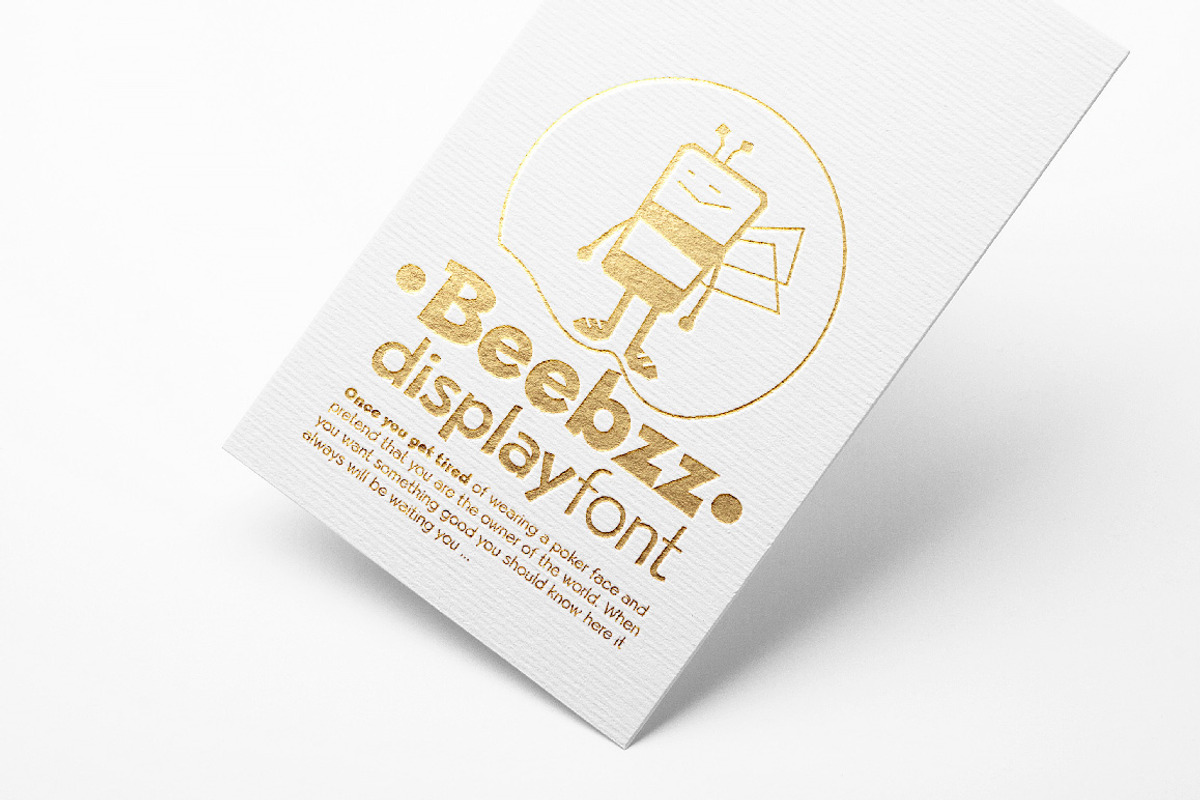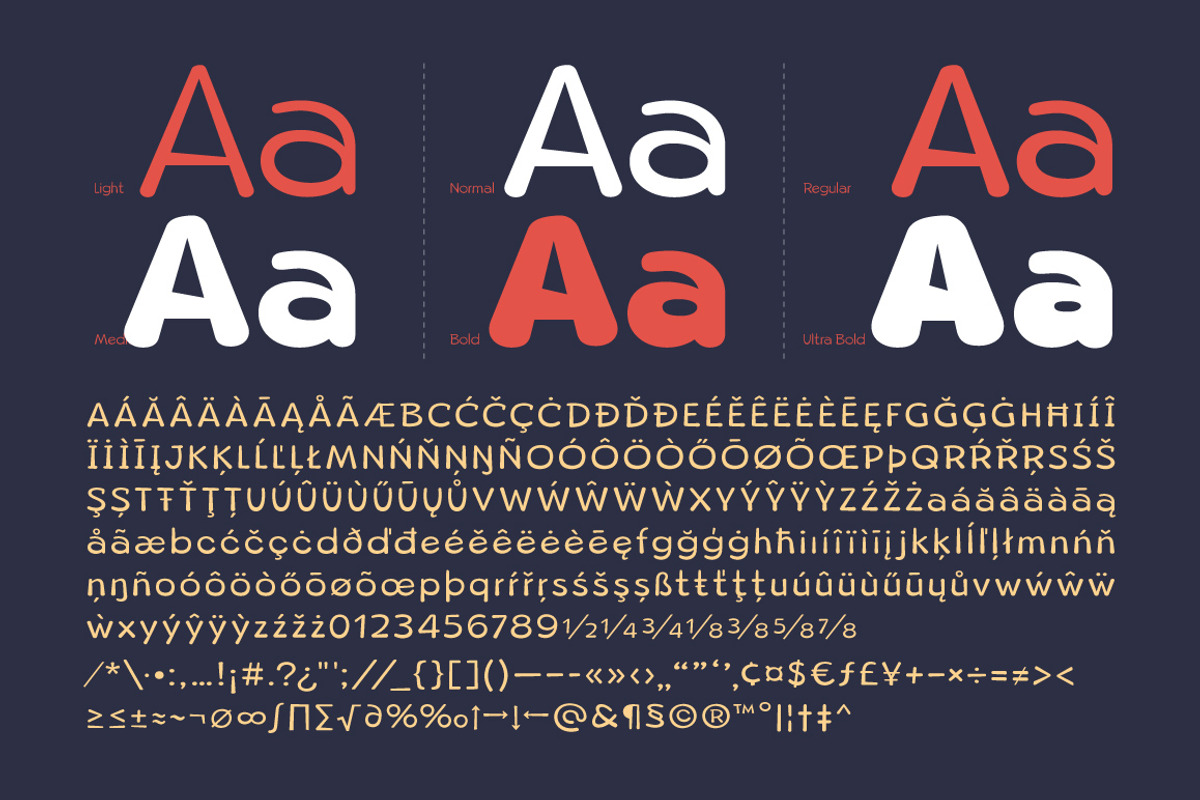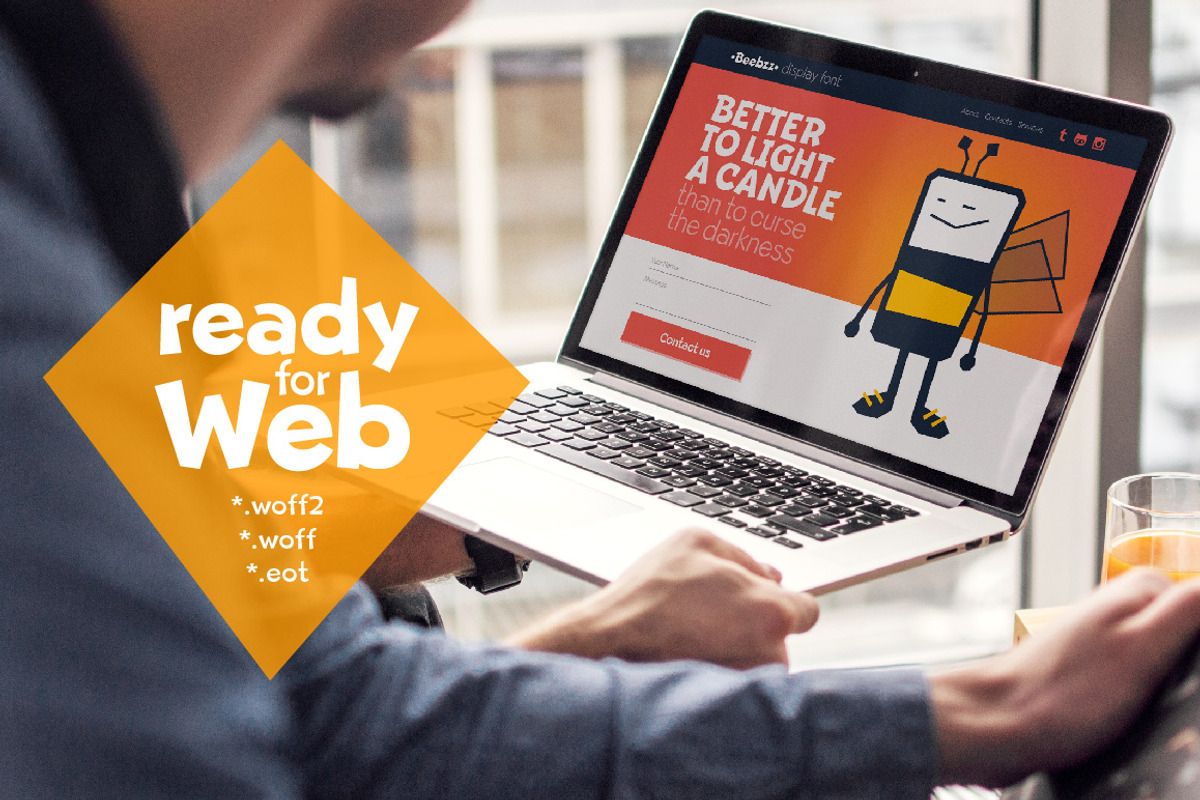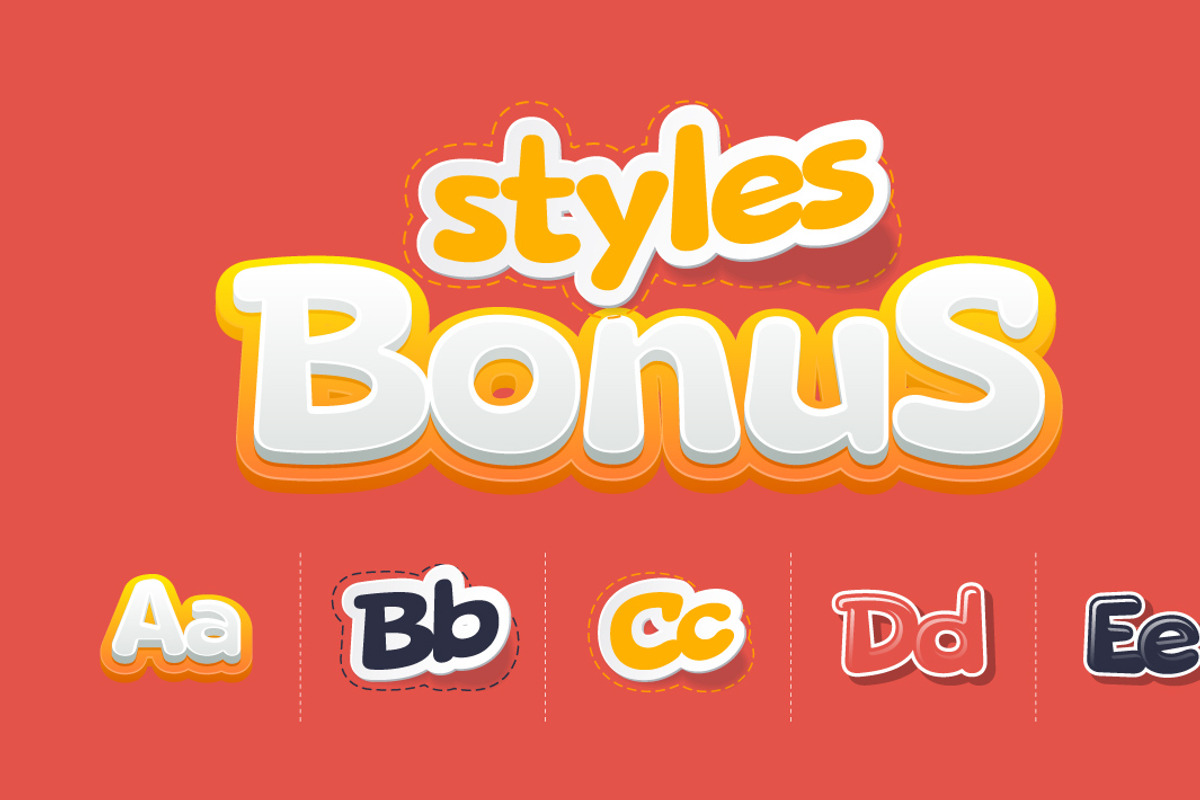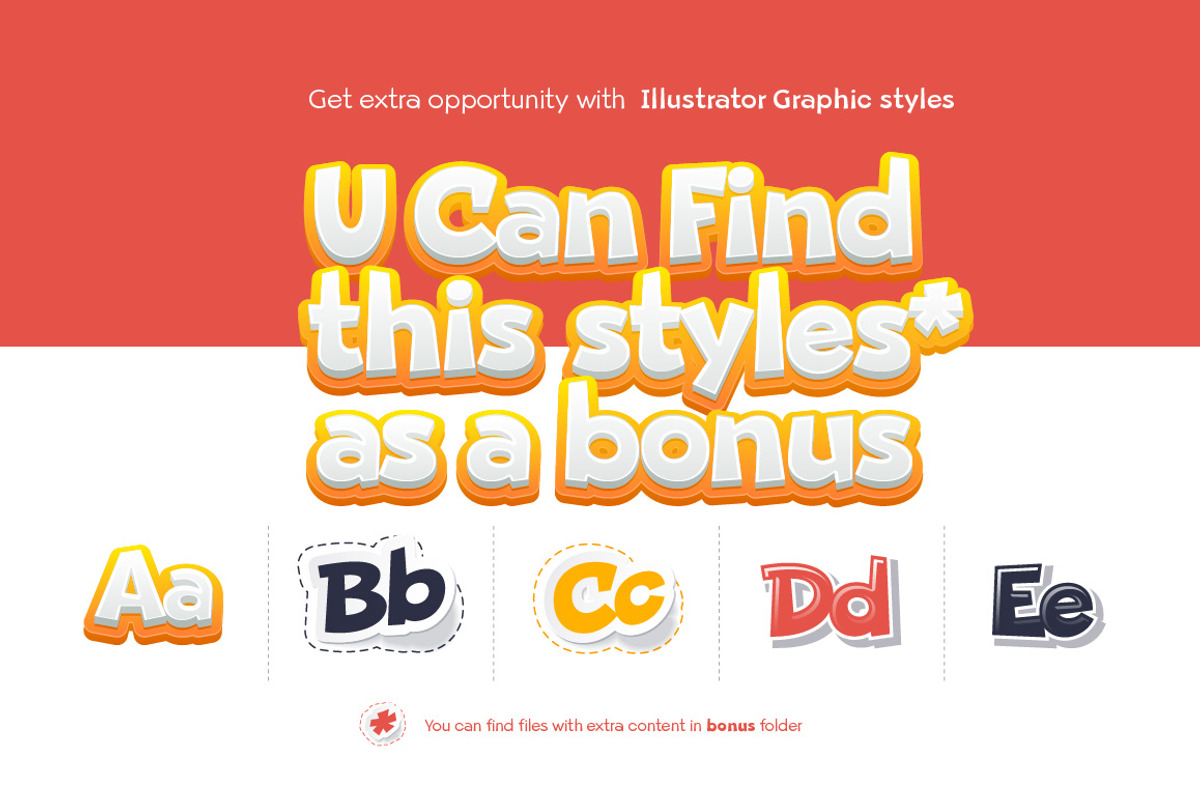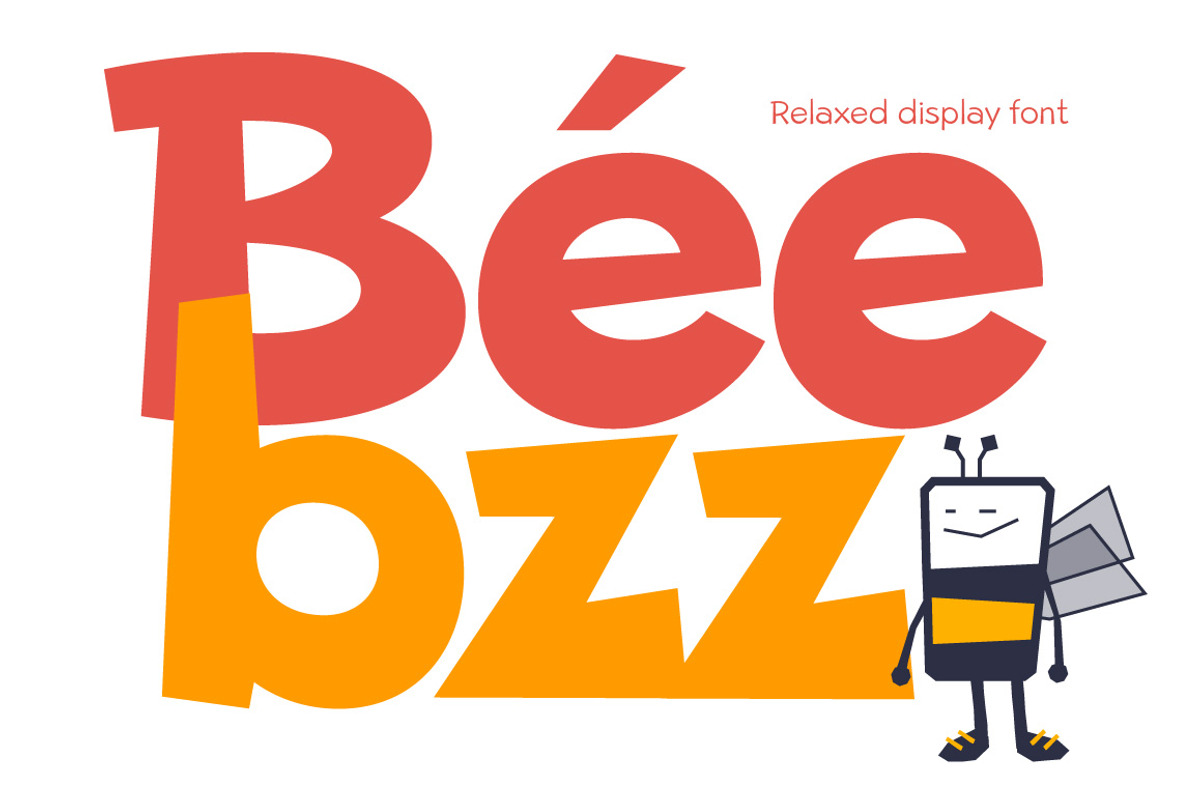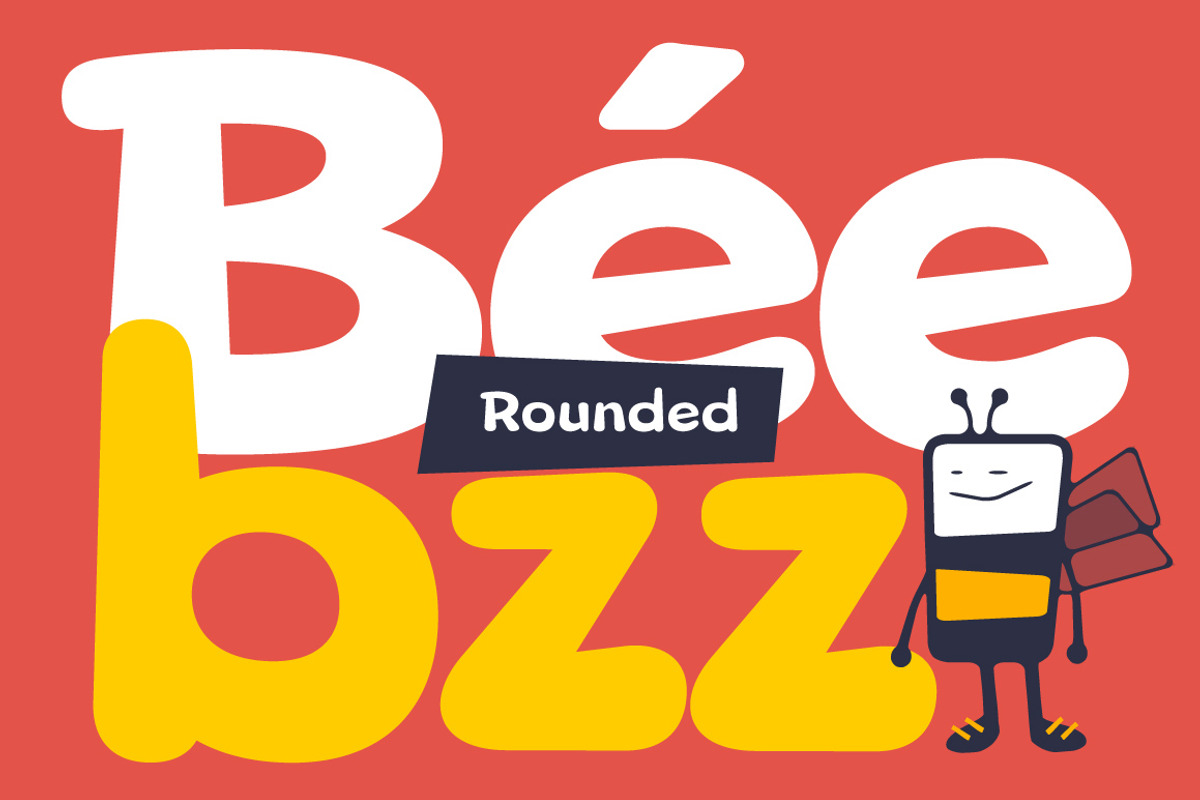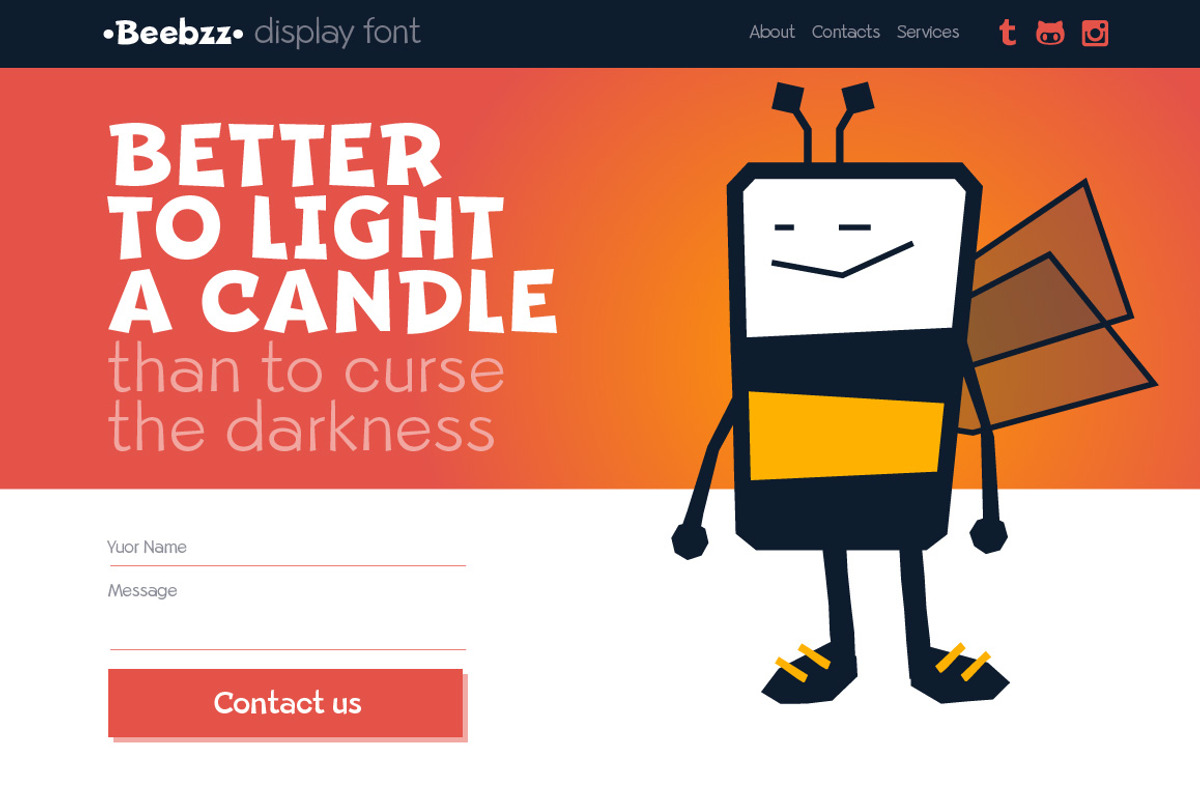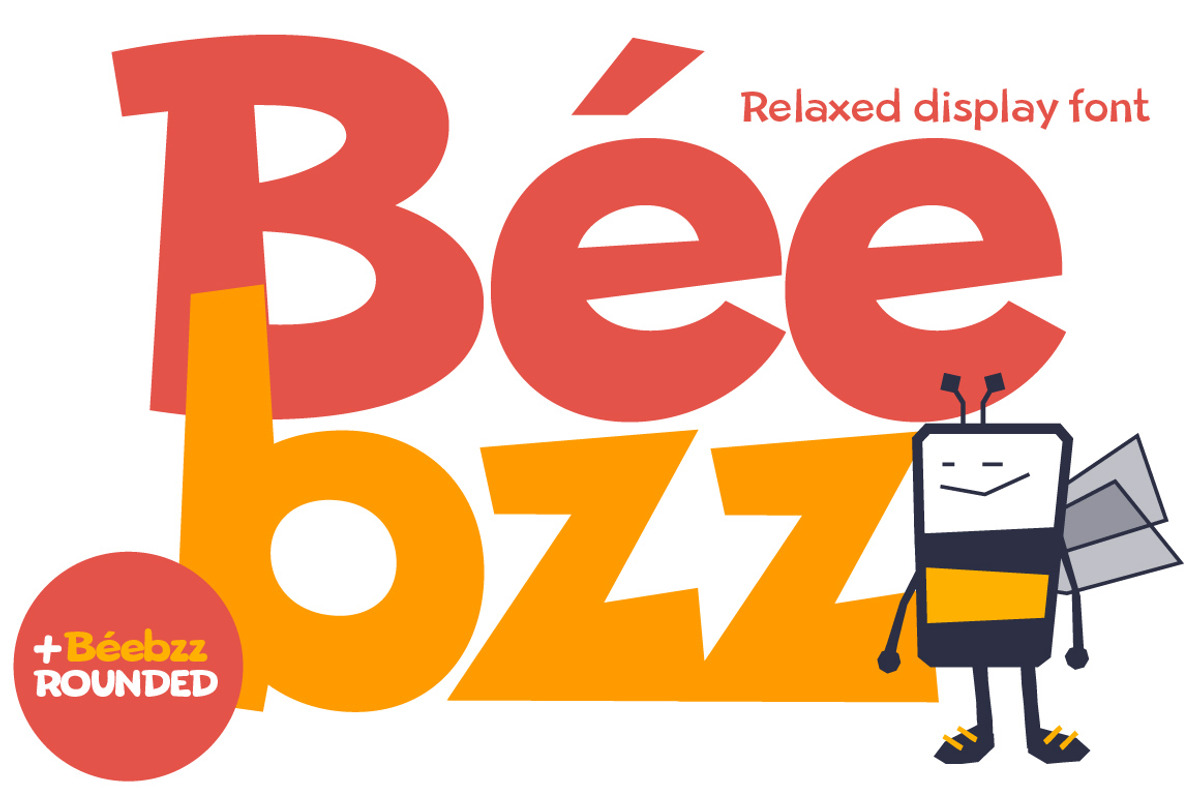
Beebzz. Child kid fun font. Display.
** Beebzz & Beebzz Rounded** fonts. Now 12 font variants!
Everybody loves black colour, strict stylish and elegant shapes. We strive to be perfect. Right? But... Do not you think that we have lost something? Maybe child's spontaneity? Beebzz font return you at those perfect times, when there was no need to be serious, when the whole world was not so serious.
Beebzz is an original font family designed for headlines, titles and subtitles. It has his own unique style in expressed perfect condensed forms, inspired by the freehand child calligraphy and and strong geometric typefaces. Beebzz is an type family ideal for display, text, print, branding, signage, and and also for user interfaces, mobile devices, especially web design creation, with a set of optimal characters for your design in any layout.